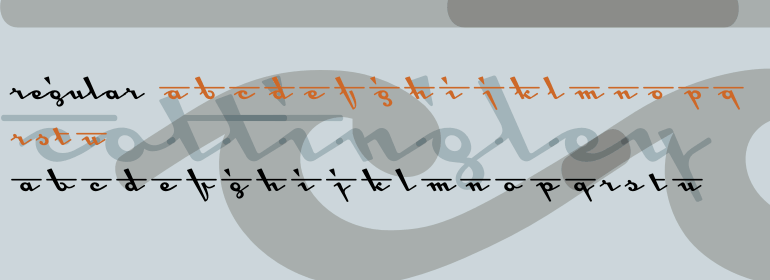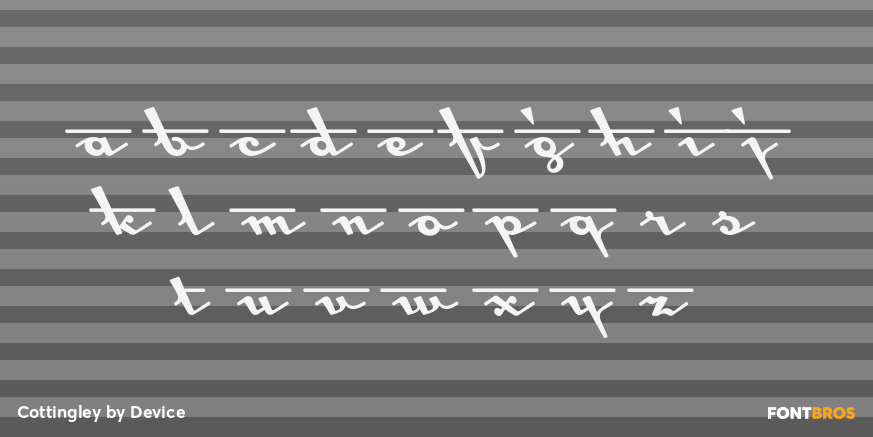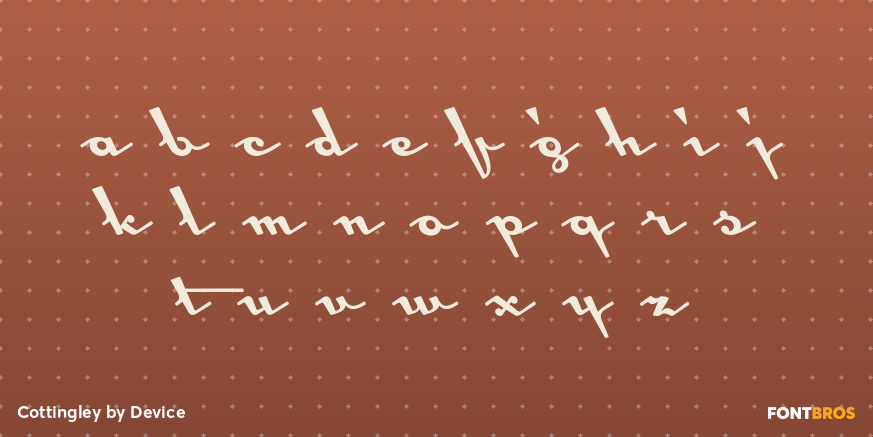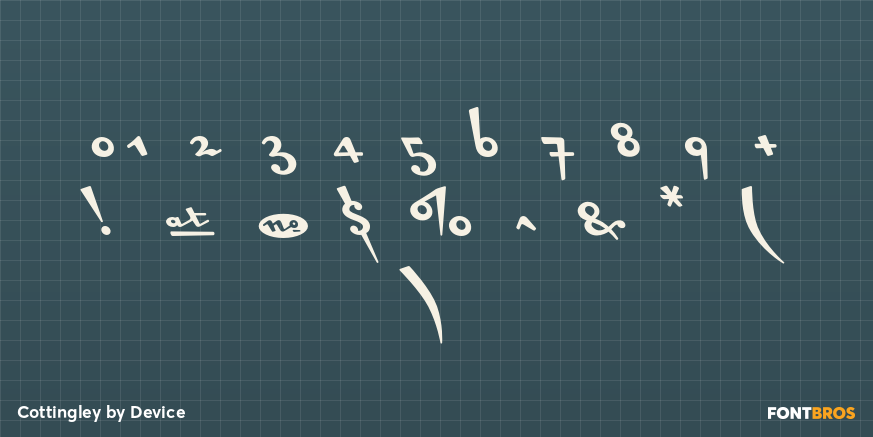
Cottingley
Font Family by Device
Cottingley is a three-style script family from Device with a distinctly retro feel, drawing on 1940s, 1950s, and 1960s lettering. Its mix of casual and formal script influences gives it a polished hand-lettered look that feels expressive, nostalgic, and full of display character.
The family includes Cottingley Regular, Cottingley Word Beginnings, and Cottingley Word Ends, making it especially appealing for designers who want more decorative word shaping and a custom-lettered effect. That makes it a strong fit for branding, packaging, poster work, signage, and other headline applications where vintage script style can really stand out.
Warm and stylish without losing clarity, this family suits projects that call for a period-inspired voice with a little flourish. Use it when you want lettering that feels tailored, memorable, and rooted in classic mid-century script design.